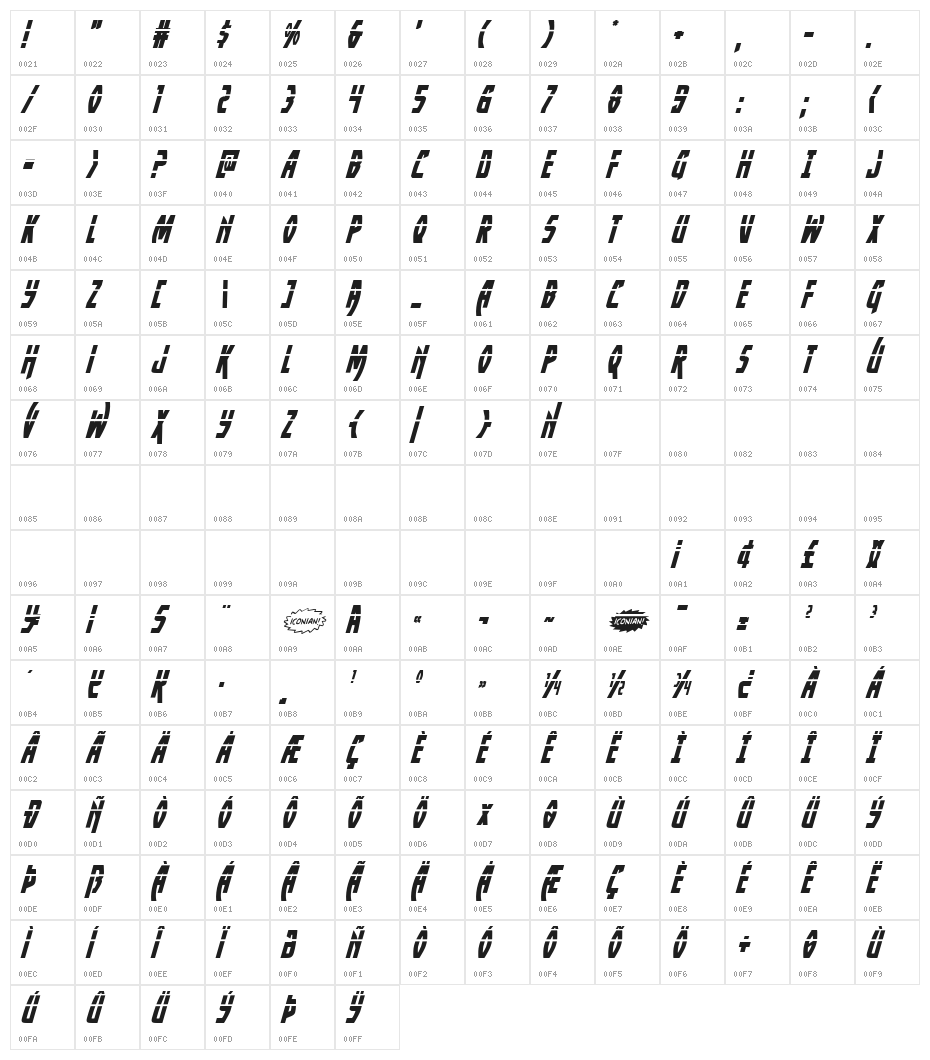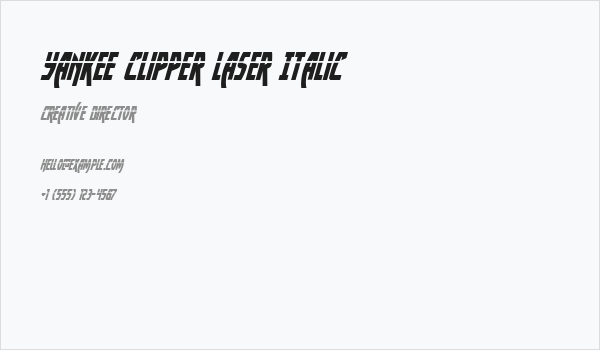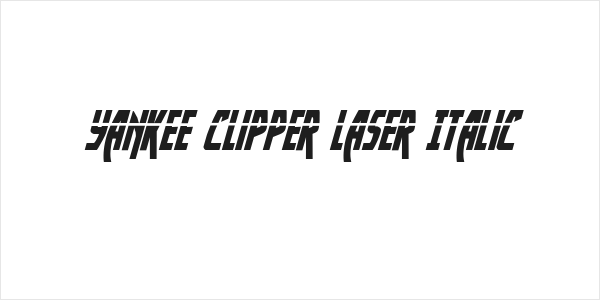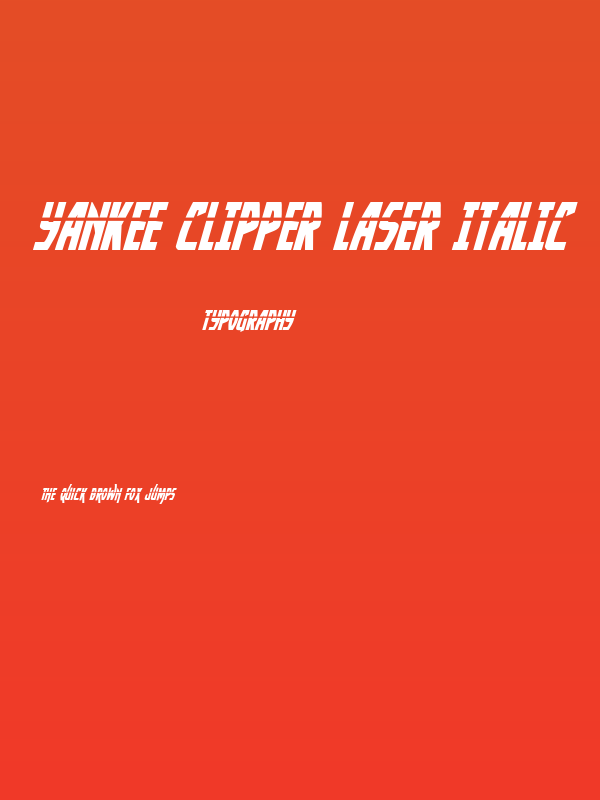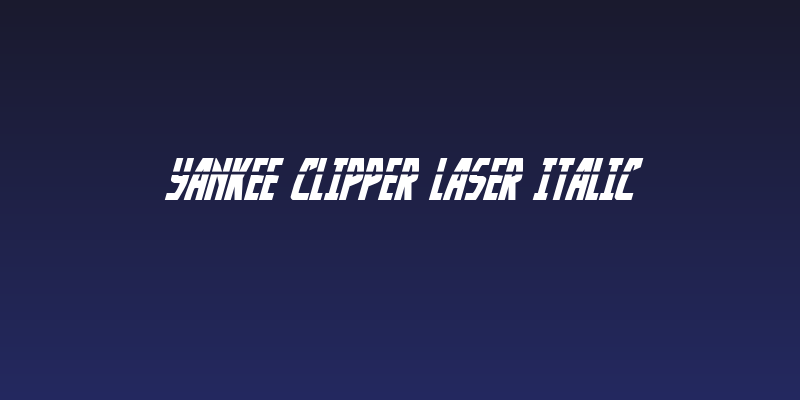
Yankee Clipper Laser Italic Font
Yankee Clipper Laser Italic Description
This font features a bold and dynamic design with a strong italic slant, giving it a sense of motion and energy. The characters are wide and angular, with sharp edges and a futuristic appearance. The uppercase and lowercase letters maintain a consistent style, while the numbers and special characters are equally bold and striking. The overall design is reminiscent of a high-speed, high-tech aesthetic, making it suitable for projects that require a modern and impactful look.
| Proposed Projects | Ideal for sports branding, tech-related designs, video game titles, and dynamic posters. |